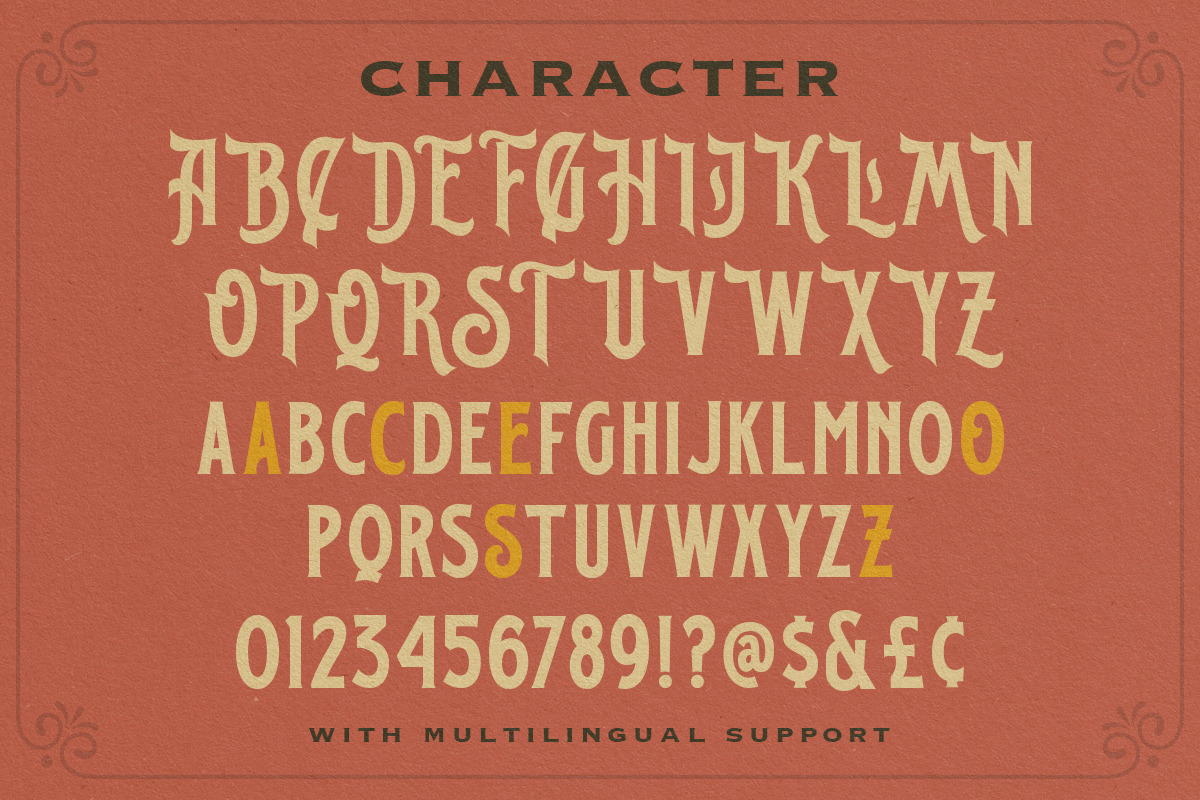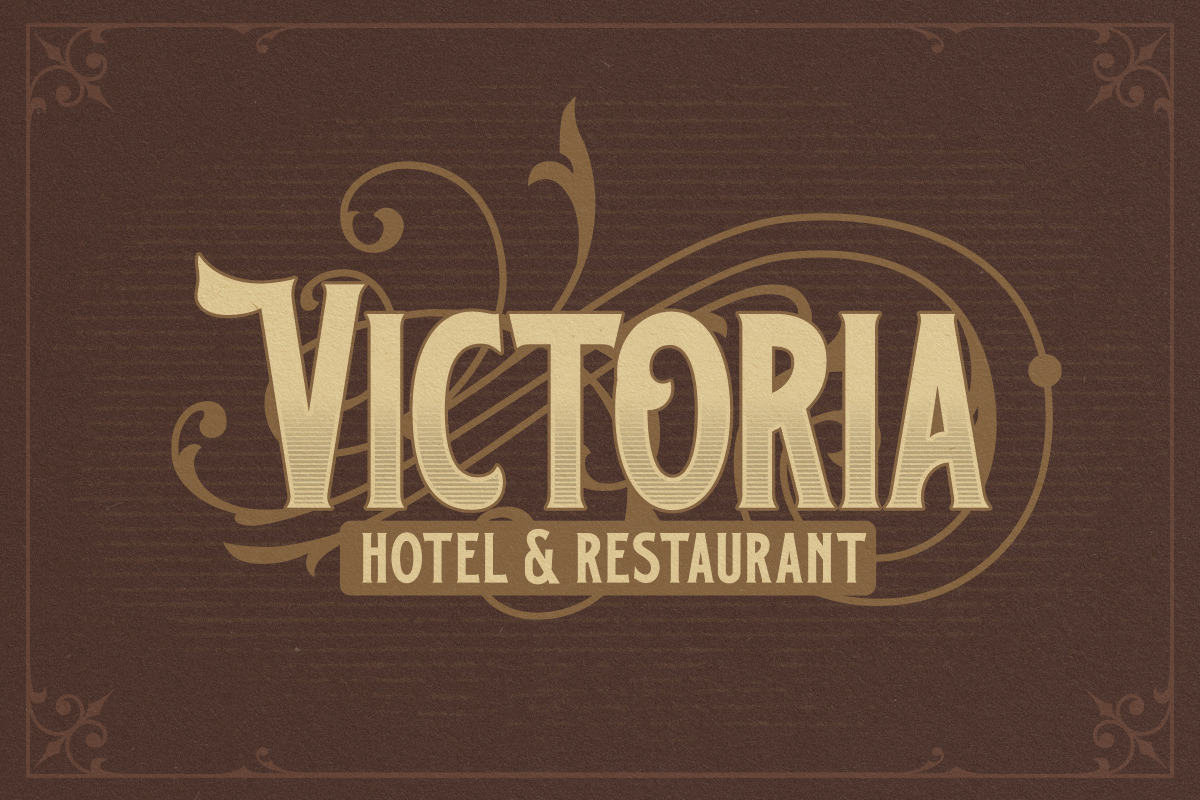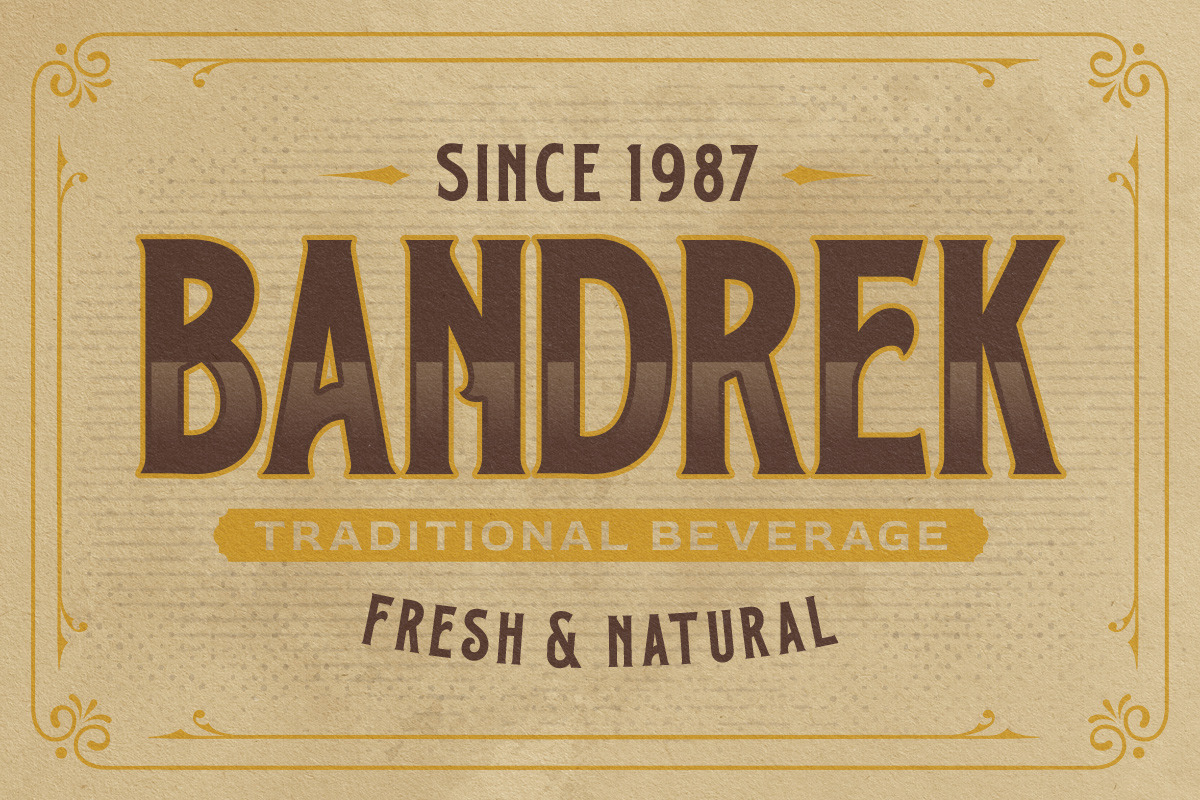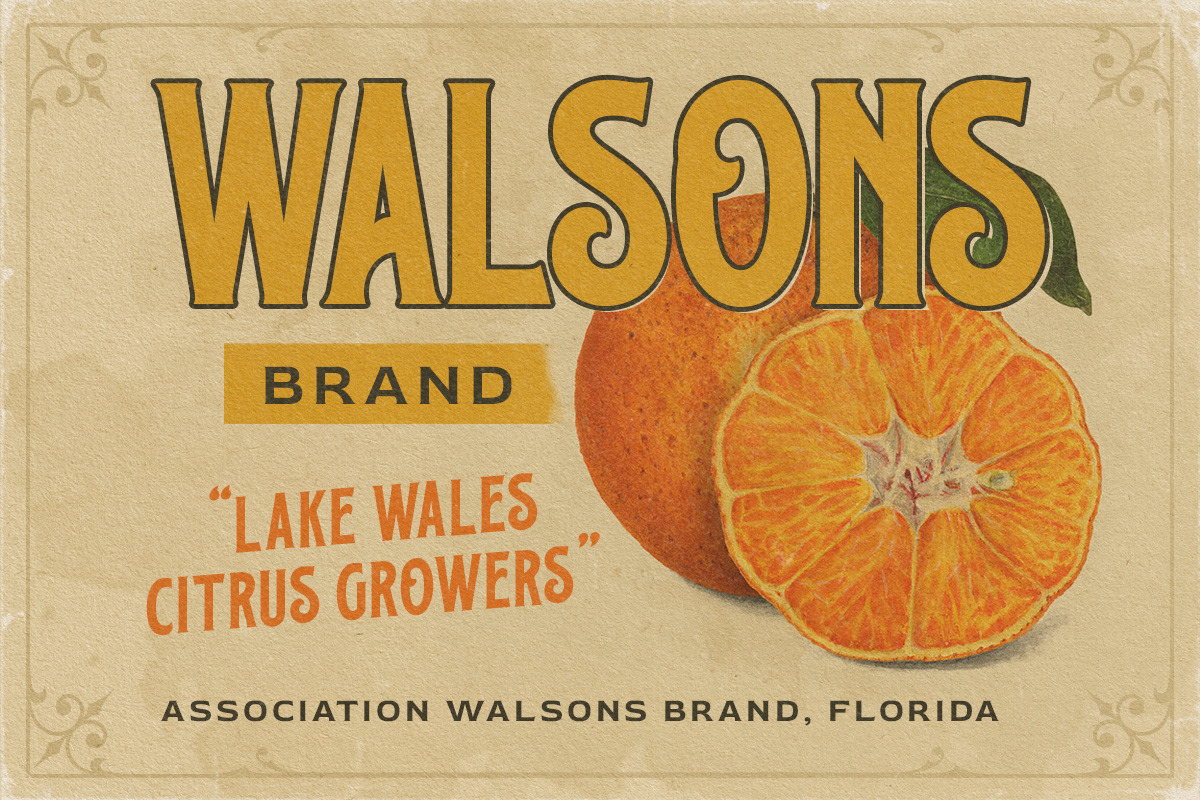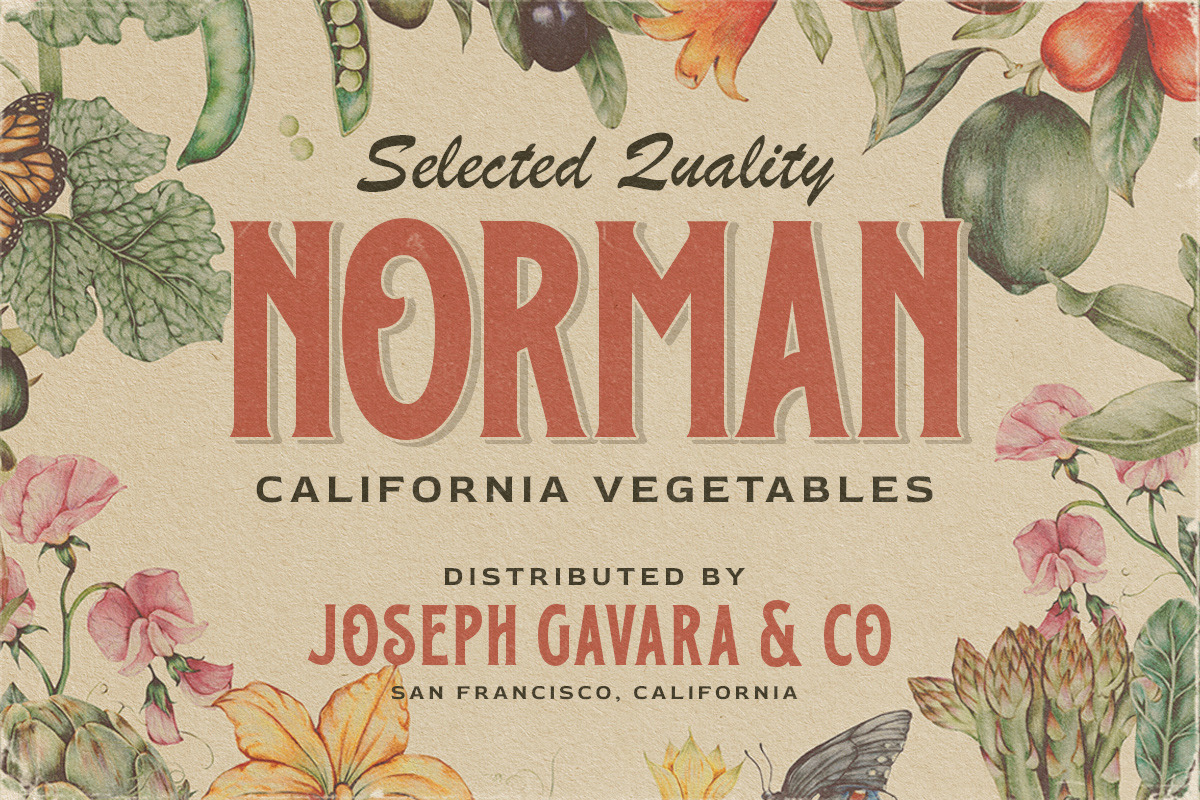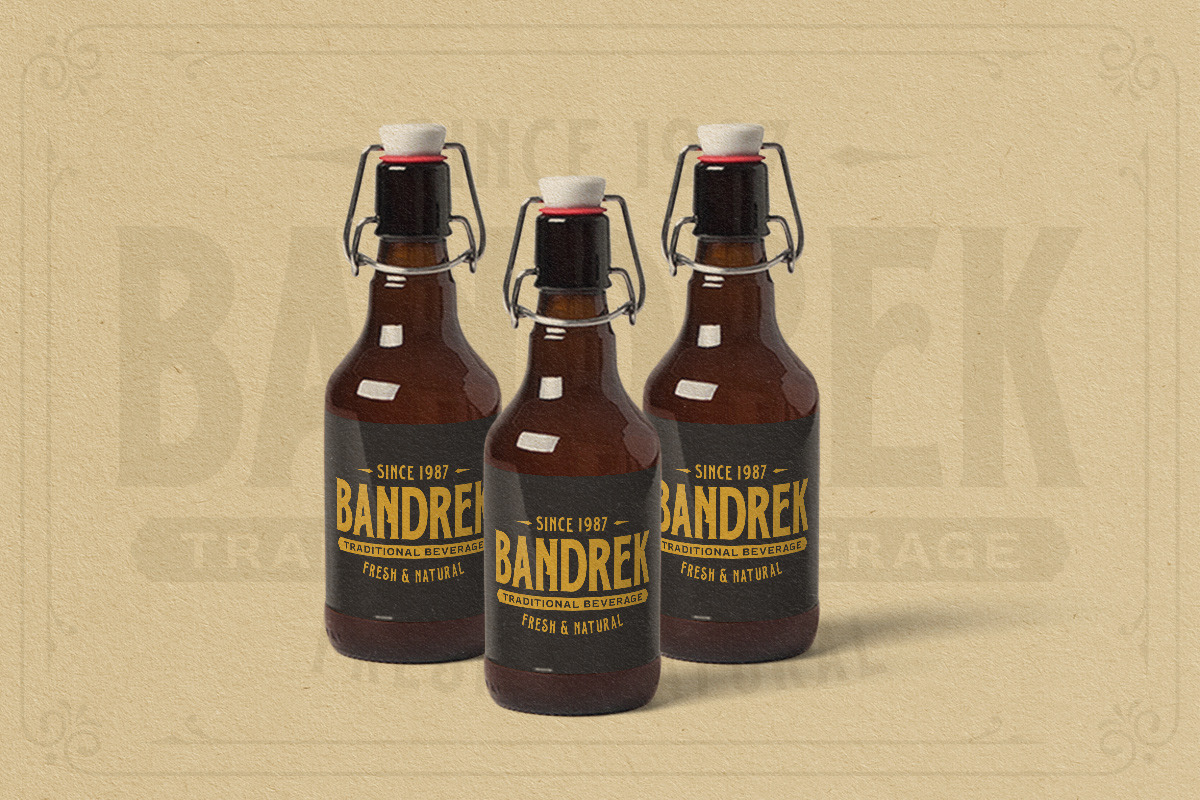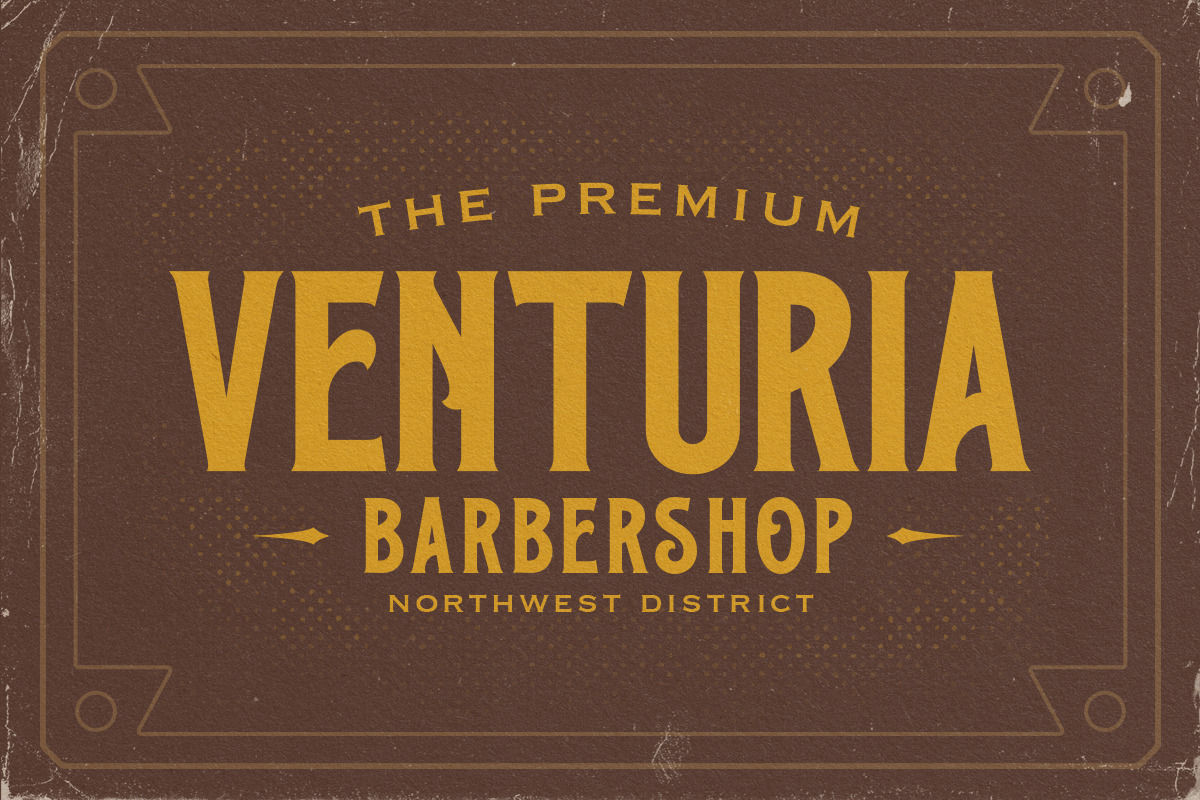
Brains Courage - Vintage Display Fon
Brains Courage is a victorian serif with classy and classic look with vintage feel, inspired by 60s and 70s signages. This font perfectly made to be applied especially in logo, and the other various formal forms such as invitations, labels, logos, magazines, books, greeting / wedding cards, packaging, fashion, make up, stationery, novels, labels or any type of advertising purpose.
- multilingual & alternate